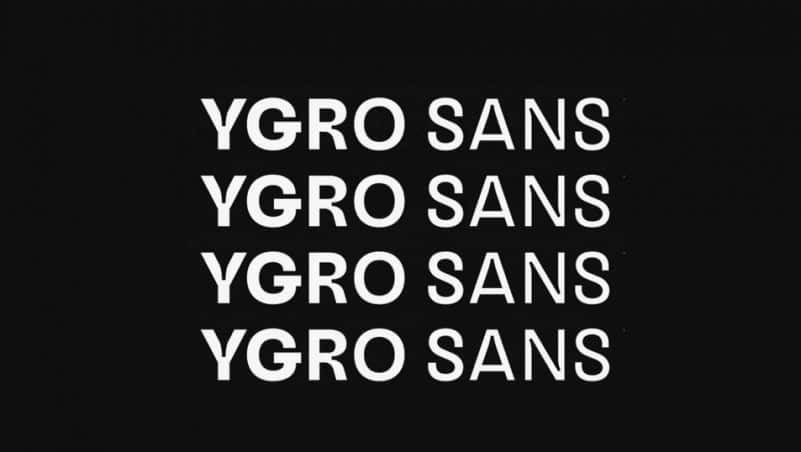
Ygro Font
Ygro Sans Serif Font is a multilingual, classic Modern vintage serif typeface. This is a very versatile font that works well in large and small sizes. It combines geometric foundation, a grotesque pedigree and a playful tone of voice.